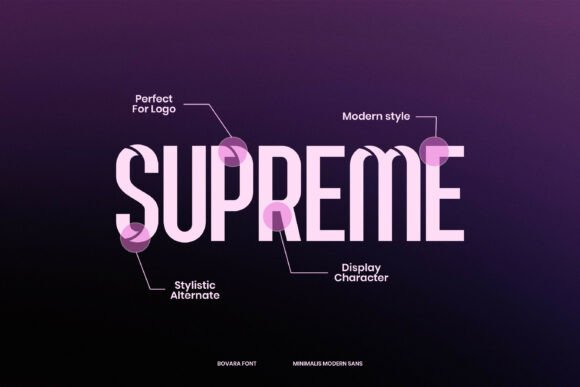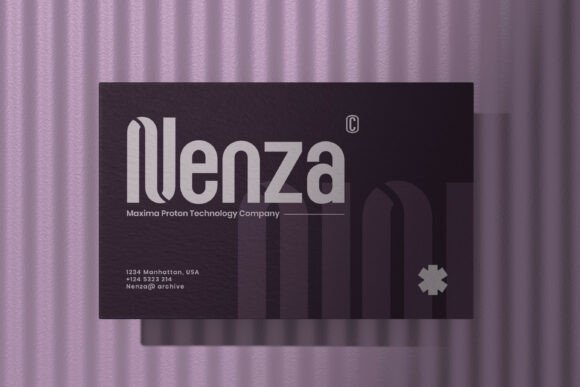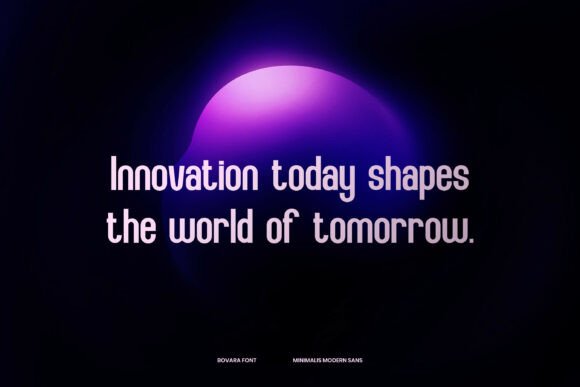
The Bovara Font: A Modern Sans Serif Marvel for Designers
I’ll never forget the design project that led me to discover the Bovara font. I was working on a branding campaign for a tech startup, and my client asked for a font that exuded confidence, style, and a hint of futurism. I scoured the internet, tried out countless fonts, but nothing seemed to fit the bill. That was until I stumbled upon Bovara – a minimalist modern sans serif typeface that instantly clicked with me.
With its strong shapes, sleek contours, and distinctly contemporary attitude, Bovara was the perfect solution for my project. Its tall, condensed form paired with subtle cutout details creates a striking visual identity that’s hard to ignore. In this article, I’ll share my experience with Bovara, its features, and how to make the most of it in your designs.
An Honest Review of Bovara Font
What I Love About Bovara ✨
- ✅ Clean geometry and futuristic character that makes it perfect for high-impact designs
- ✅ Subtle cutout details that add a touch of sophistication
- ✅ Works well for both digital and print designs
- ⚠️ Limited language support – Bovara is designed for English and some European languages
- ⚠️ Not ideal for body text – Bovara’s condensed form makes it better suited for headlines and titles
Exploring Bovara’s OpenType Features
Bovara font comes with a range of OpenType features that can enhance your designs. Some of these features include:
- Stylistic alternates: Bovara offers alternative characters that can add a unique touch to your designs
- Glyphs: Access a range of glyphs, including ligatures and ornaments, to add visual interest to your text
The Story Behind Bovara Font
Bovara was designed with the goal of creating a modern sans serif font that embodies confidence and style. The design team behind Bovara drew inspiration from futuristic architecture, cutting-edge technology, and sleek design trends. The result is a font that’s both visually striking and highly legible.
Q: What is the Bovara font best used for?
A: Bovara font is best used for high-impact designs such as branding, posters, album covers, advertisements, website headers, and modern editorial designs.
Q: Is Bovara suitable for body text?
A: Bovara’s condensed form makes it better suited for headlines and titles. For body text, consider using a font with a more traditional, serif design.